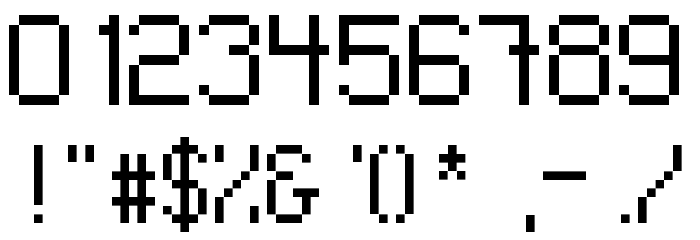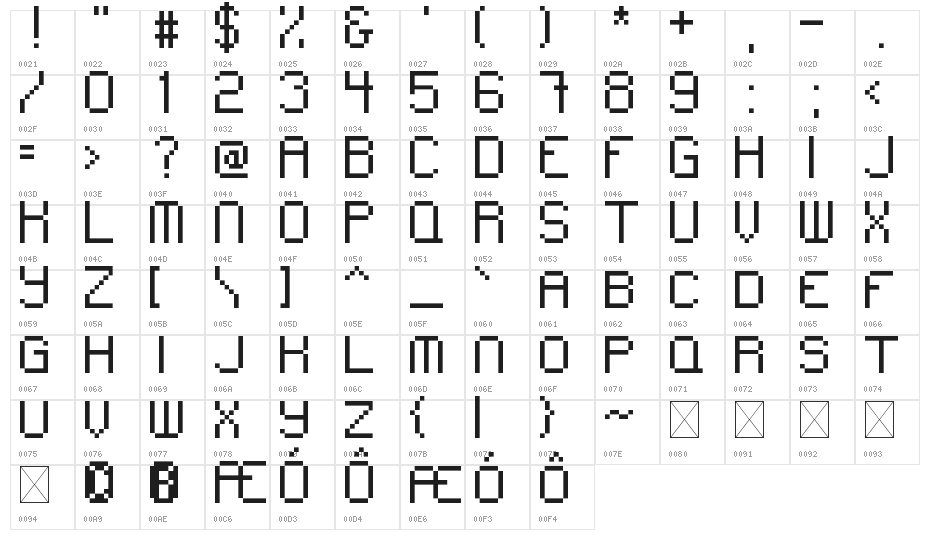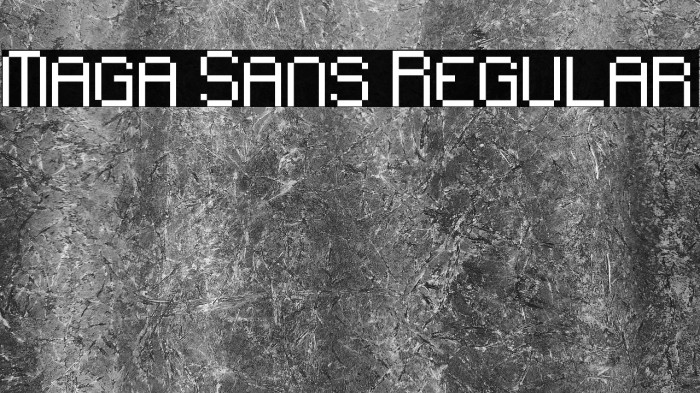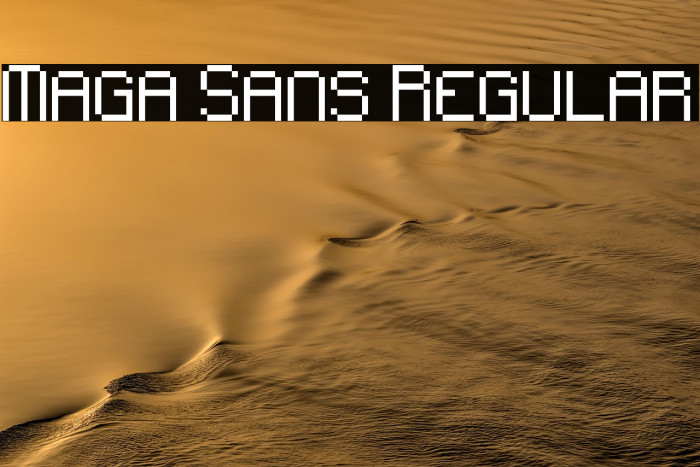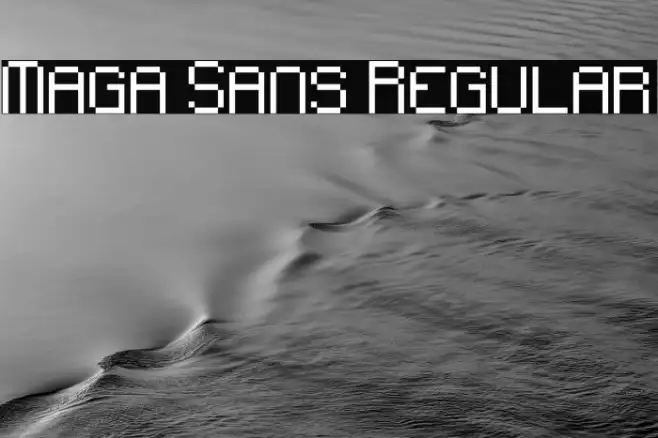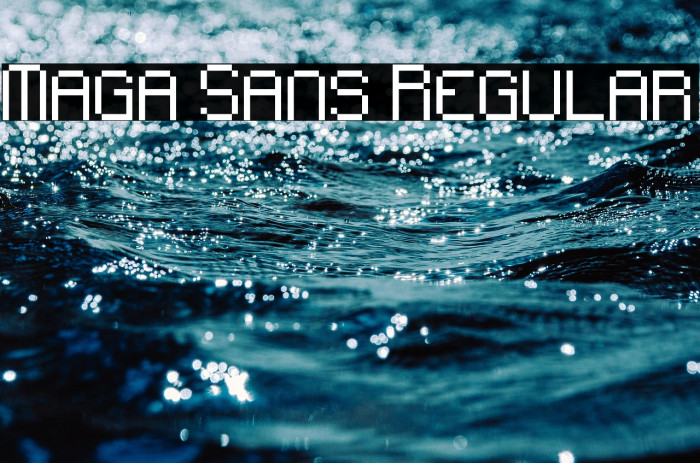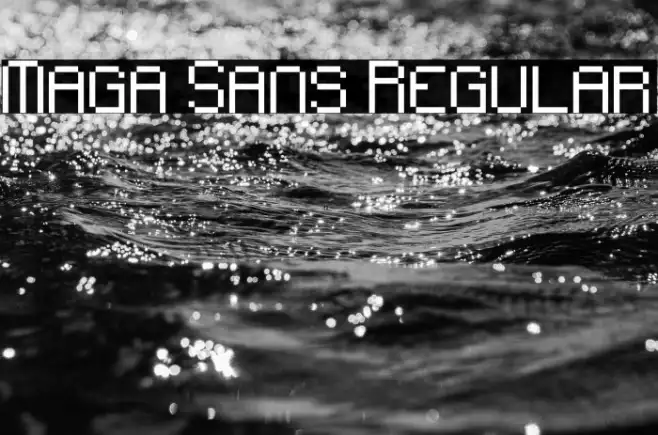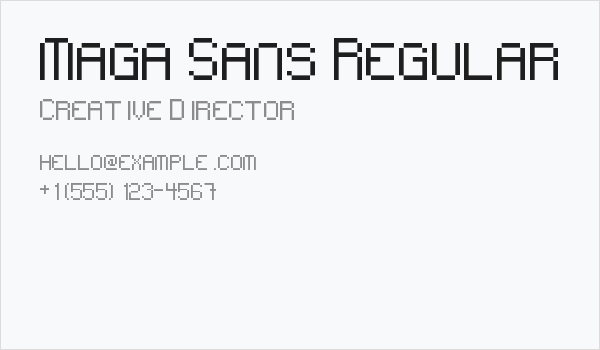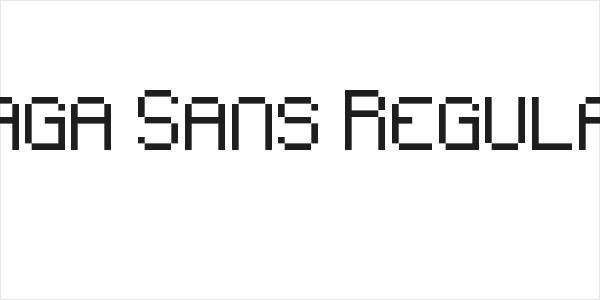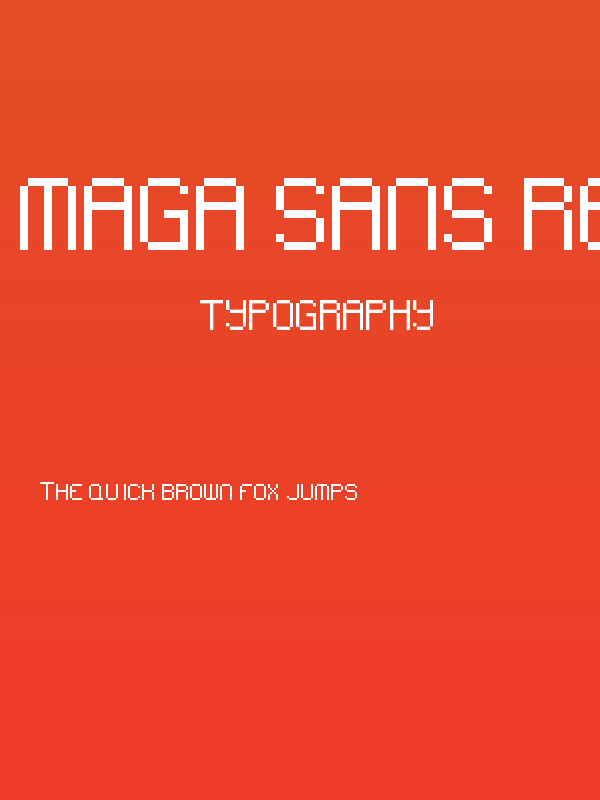
Maga Sans Regular Font
Maga Sans Regular Description
This font features a distinct pixelated style reminiscent of early digital displays and retro video games. Each character is constructed with a grid-like precision, giving it a blocky, geometric appearance. The uniformity in stroke width across all characters contributes to a cohesive and structured look. The uppercase and lowercase letters maintain a consistent height, enhancing readability while preserving the font's unique aesthetic. Numbers and special characters follow the same design principles, ensuring a seamless integration with text. This font's nostalgic charm makes it ideal for projects that seek to evoke a sense of vintage digital technology.
| Use Case | Logos, Headlines, Digital Art |
| Proposed Projects | Ideal for retro video game design, digital art projects, tech-themed posters, and nostalgic branding. |